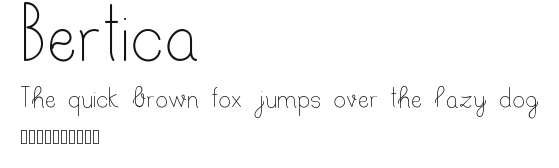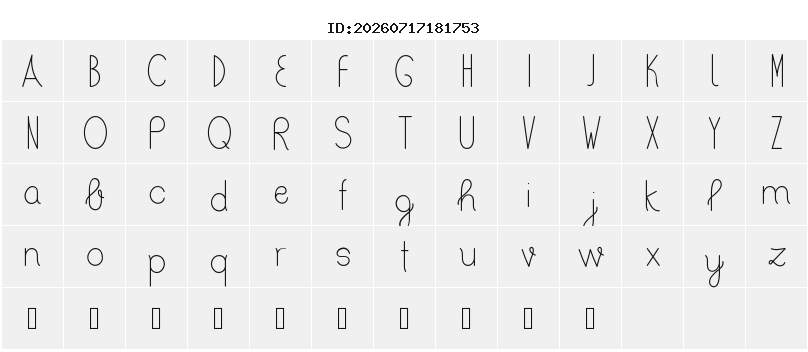
• Font Name: Bertica
About Bertica.ttf
Bertica.ttf is a modern, elegant sans-serif font designed for ultimate readability and visual harmony. Perfect for branding, headlines, web design, and print materials.